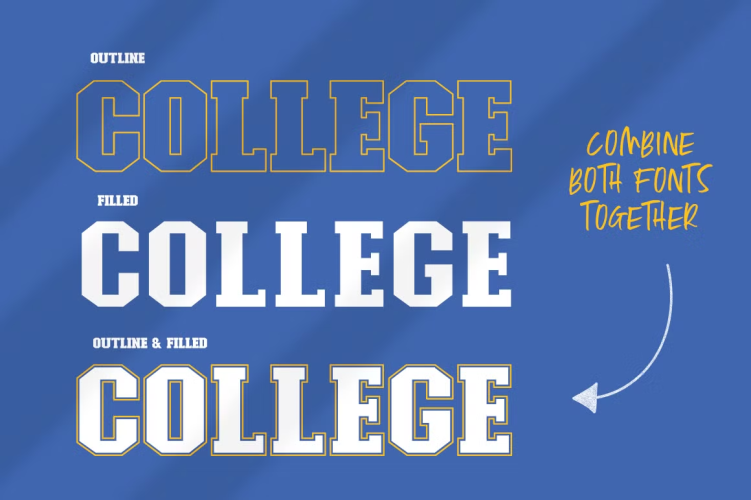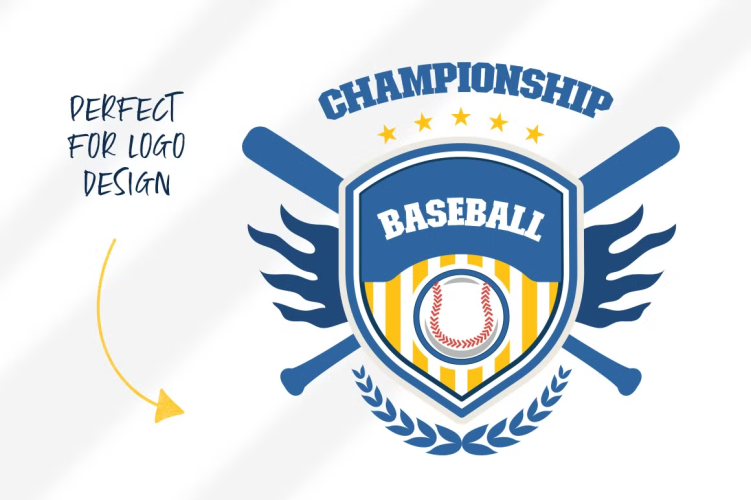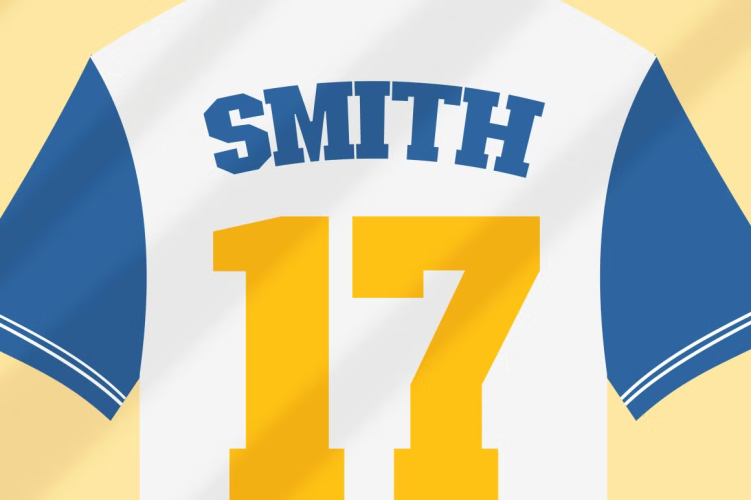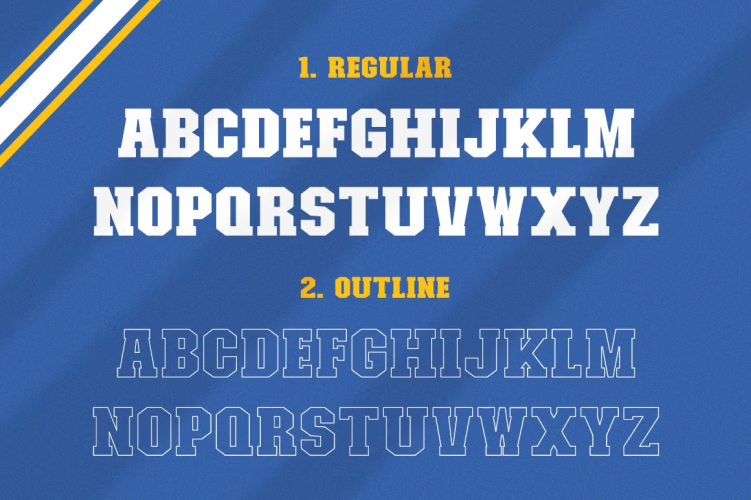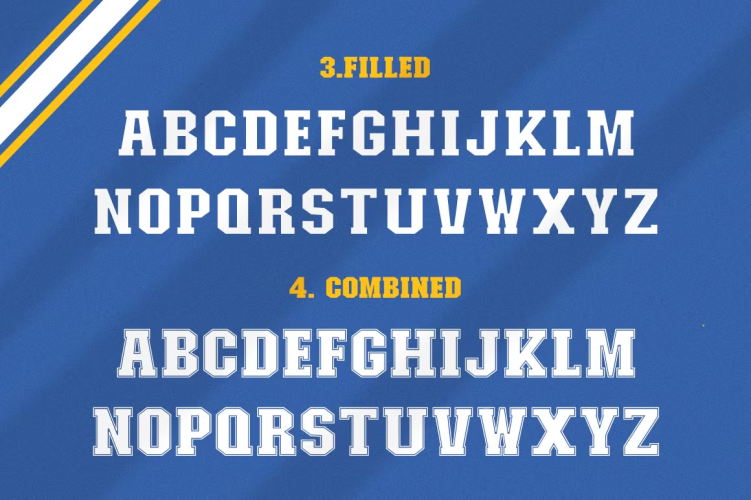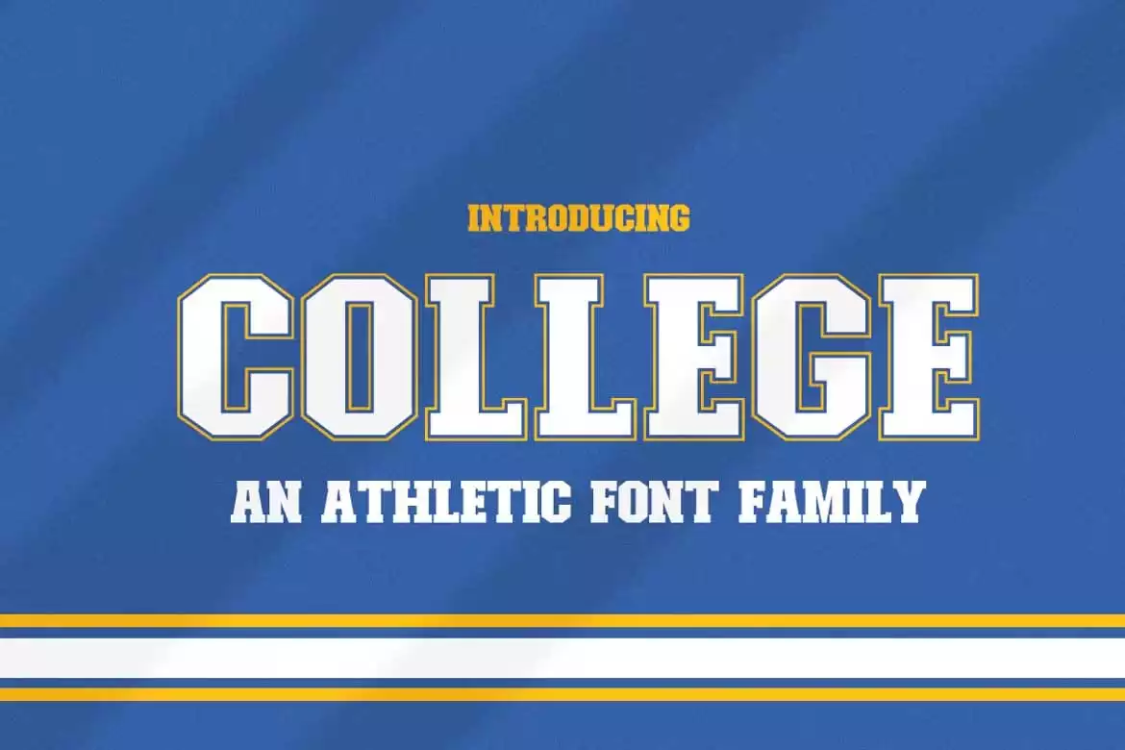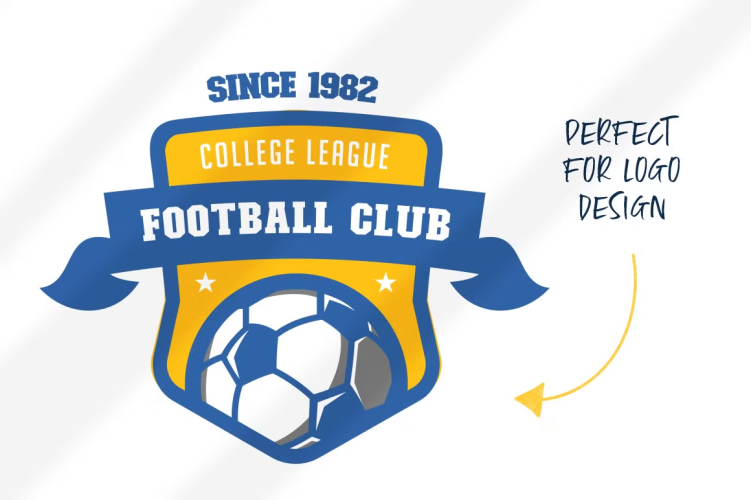
College Font
College Font is an athletic family that is very dynamic. Wrinkle or crumple them, and be creative by associating them with bright colours that define you. Bring some of…
College Font is an athletic family that is very dynamic. Wrinkle or crumple them, and be creative by associating them with bright colours that define you. Bring some of that infectious college life feel to your designs by peppering them with touches of whimsy and reminiscence. Design your creations through the dynamic experience of academia and travel the adventurous path you will enjoy.
Where College Font works best
College Font is built for size: event posters, hero headlines and billboard-style layouts.
High contrast display type like College Font reads instantly in thumbnails and motion graphics.
What is College Font good for?